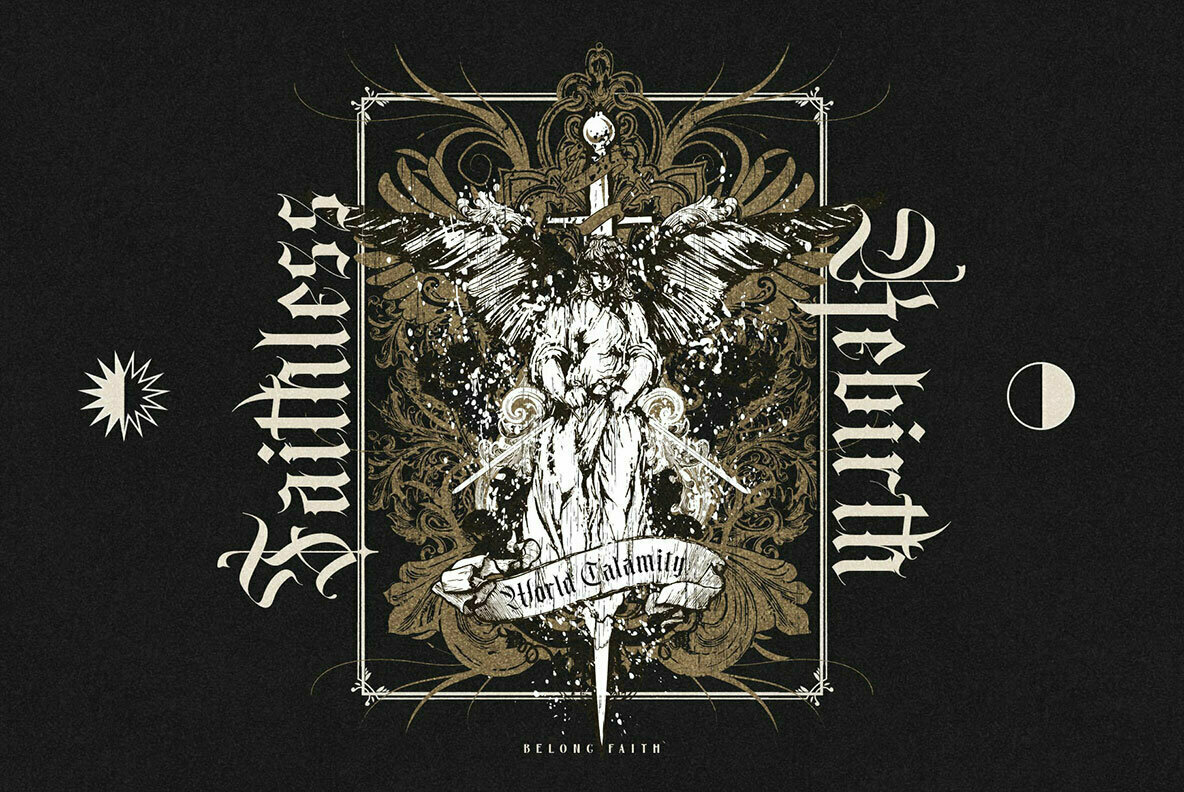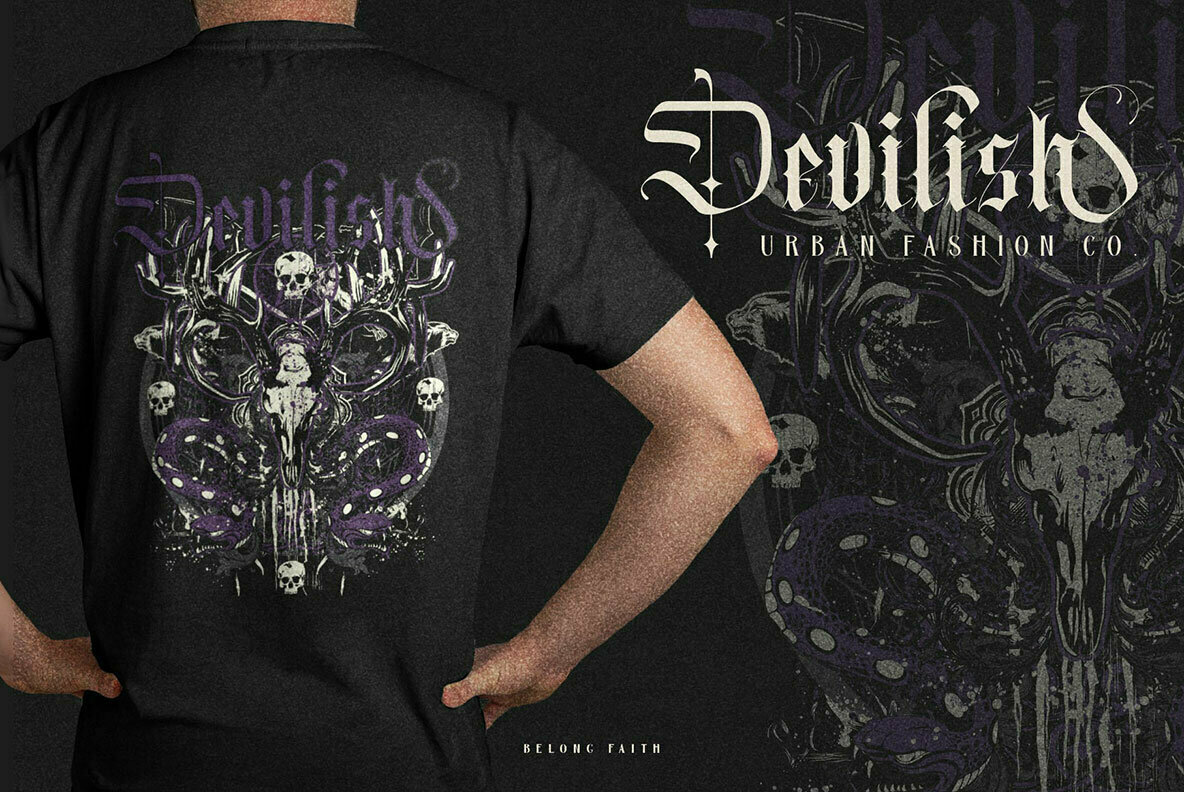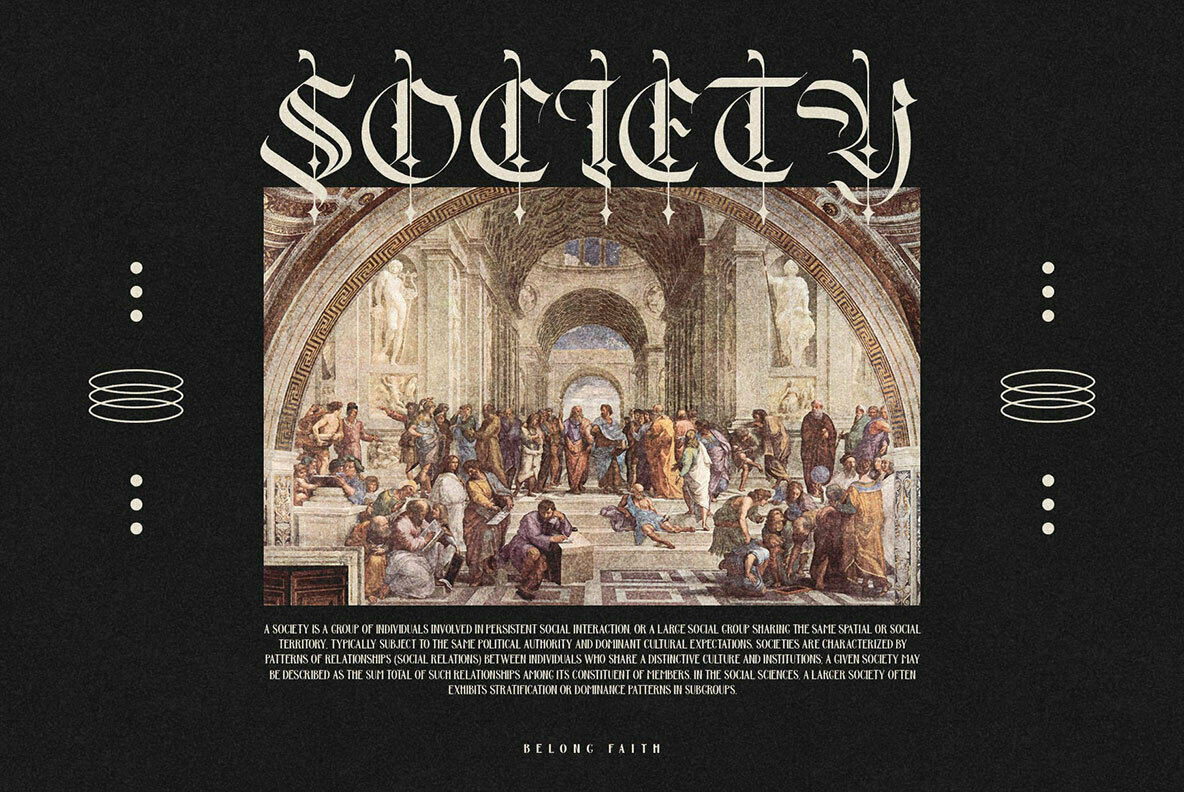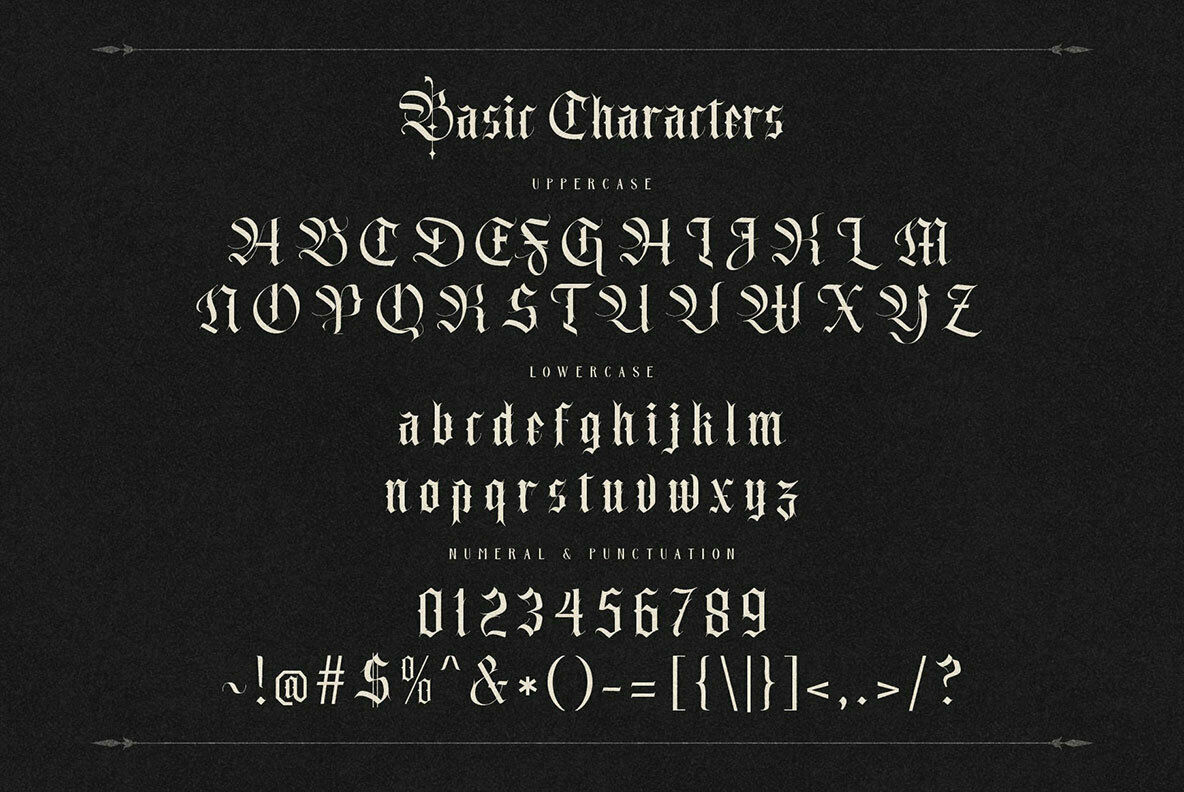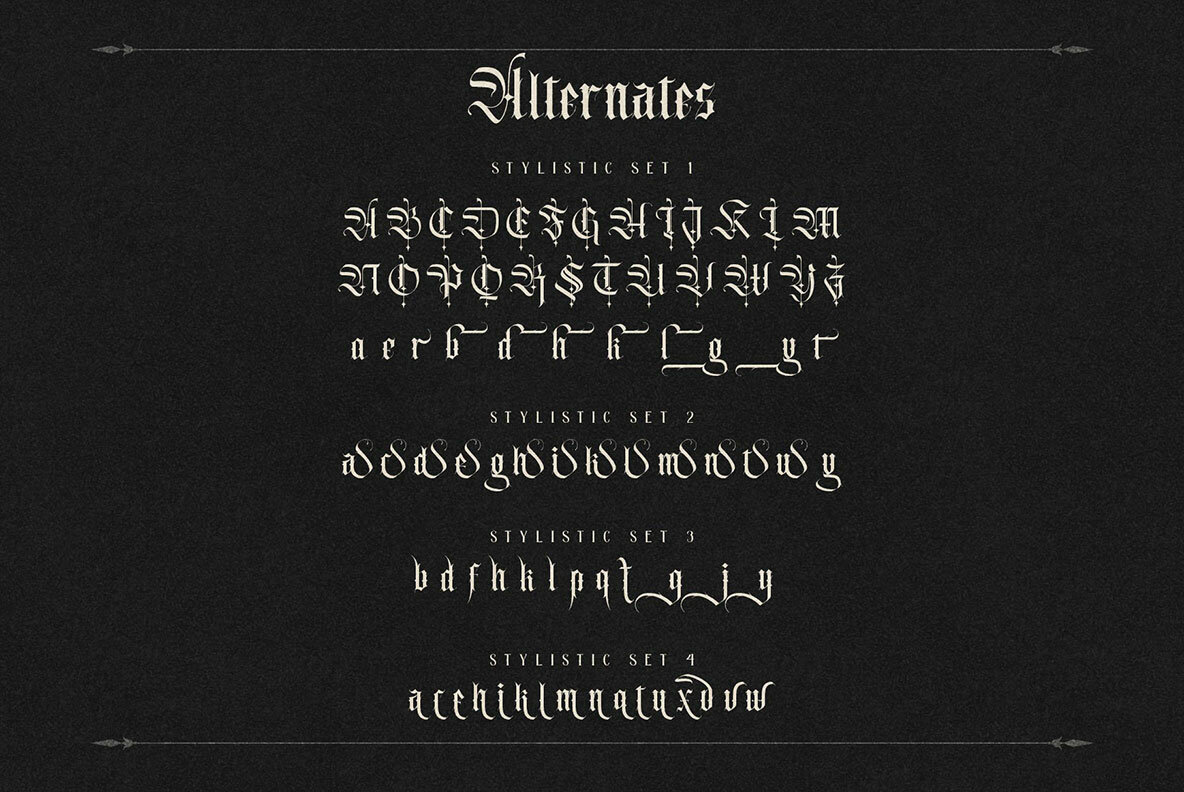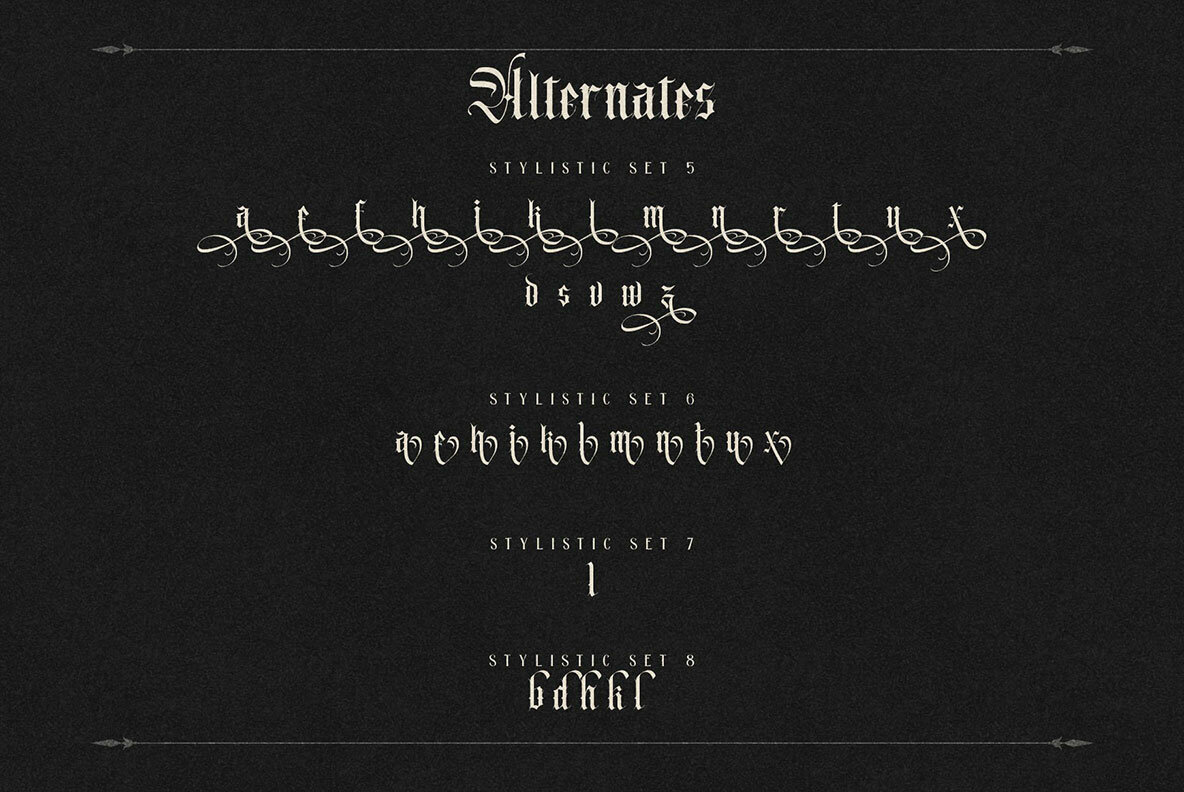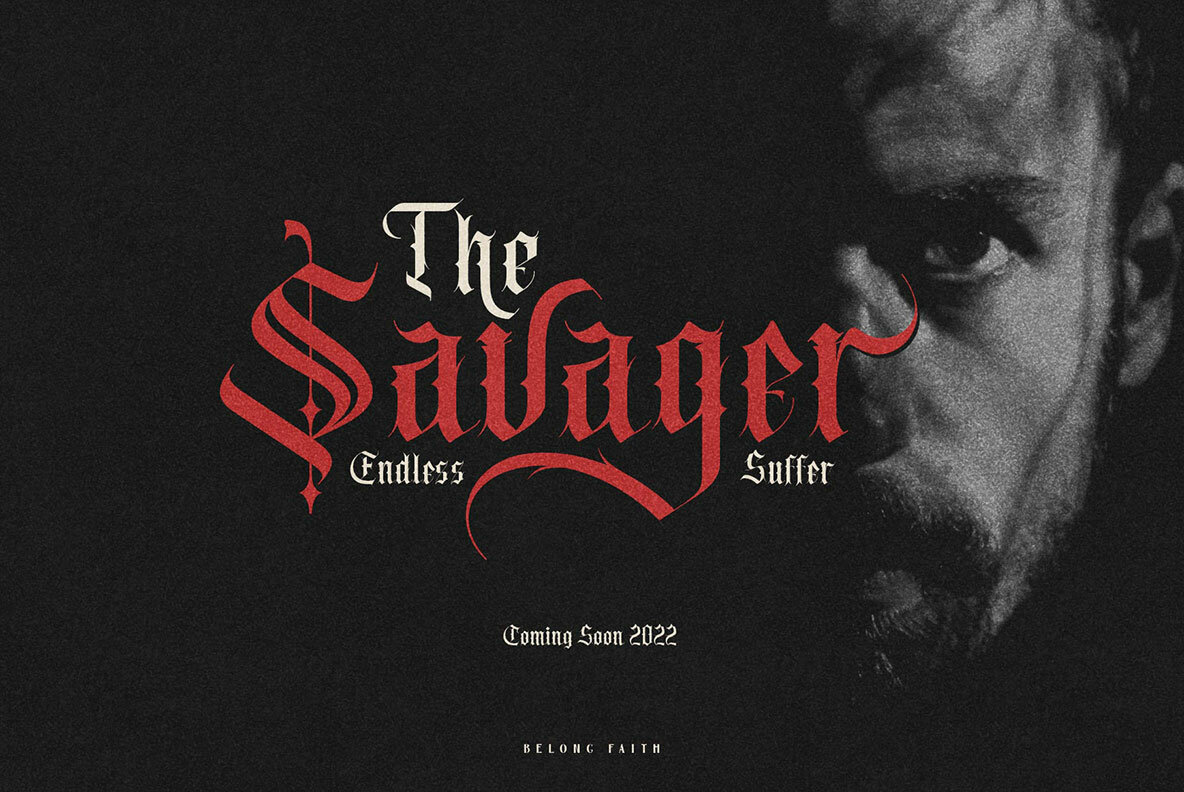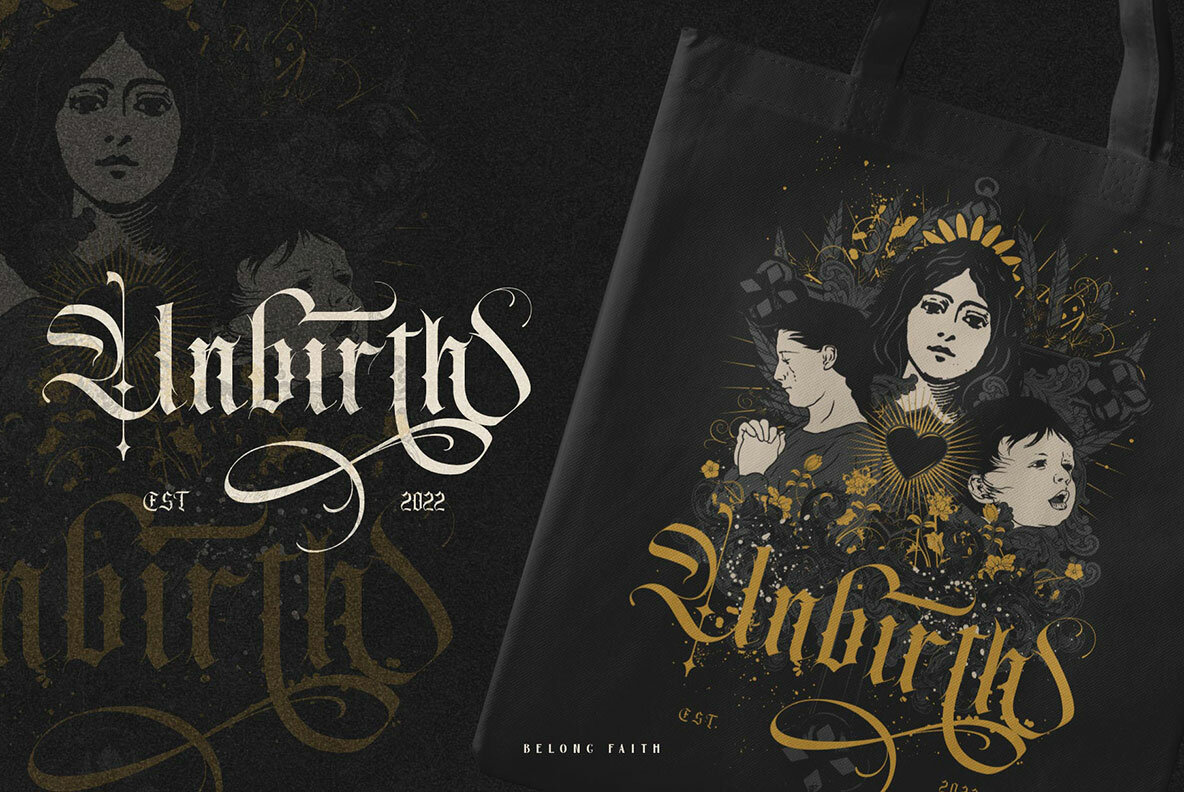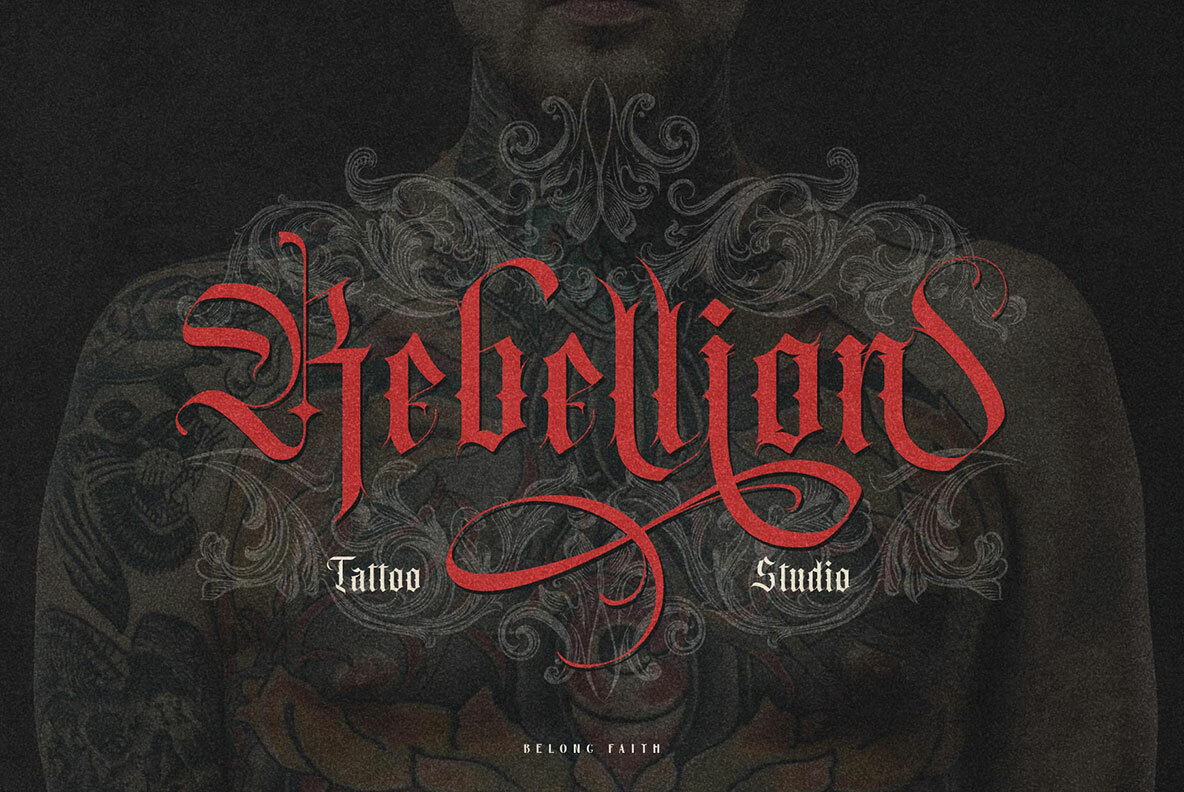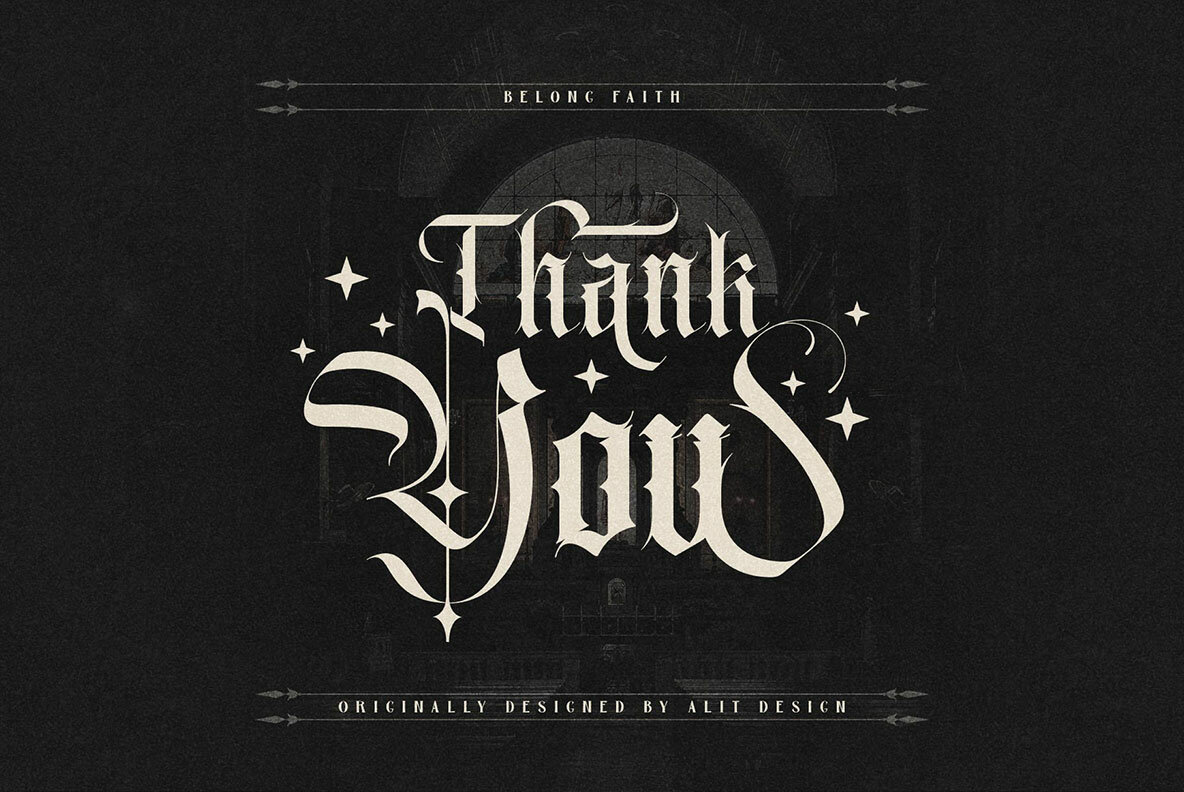
Belong Faith Font
Belong Faith Regular
Belong Faith is a distinctive font inspired by the traditional Blackletter typeface, reimagined with a contemporary touch. Its bold and unique personality sets it apart, offering a plethora of design possibilities. Enhanced with various alternatives such as swashes, ligatures, and alternative characters, Belong Faith excels in creating strong or dark-themed designs across diverse projects. Supported with multilingual characters, this font seamlessly integrates into several international languages, broadening its application. From music album covers to tattoo logos and from whiskey labels to pomade packaging, Belong Faith is your go-to choice for projects demanding a striking and robust aesthetic.Belong Faith: A Blackletter Typeface with Modern Flair